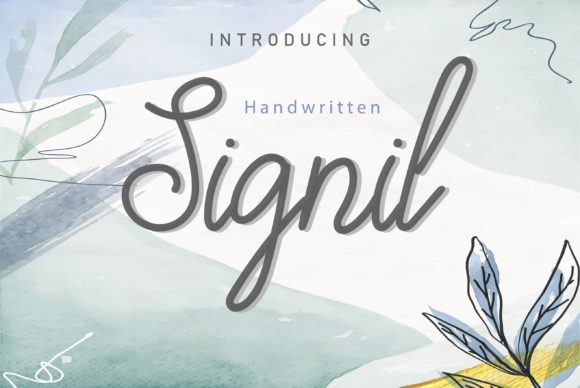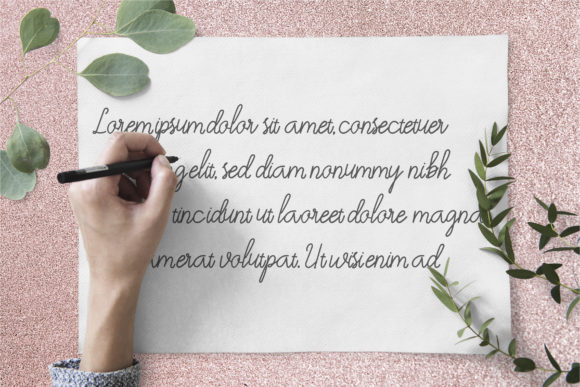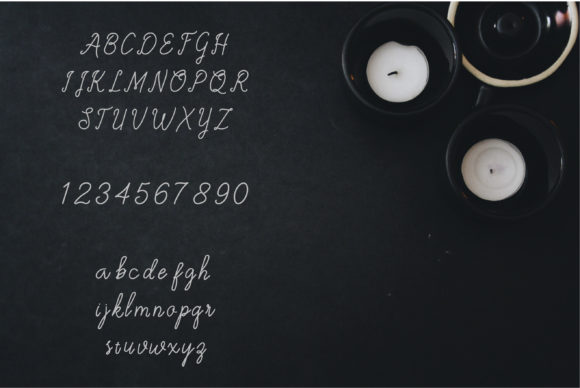
About Signil Font
Signil is a well-balanced and beautiful script font. This font was particularly crafted for those who need a lovely and refreshing look to their designs.